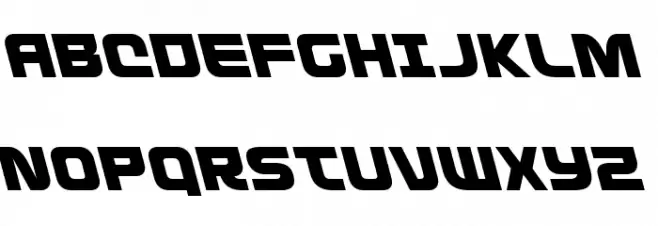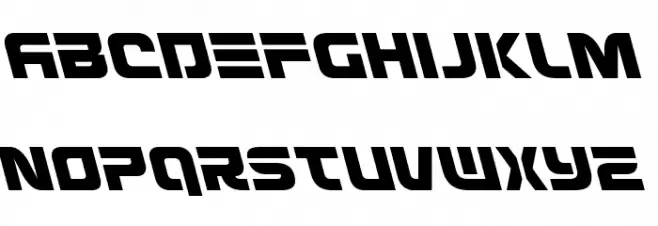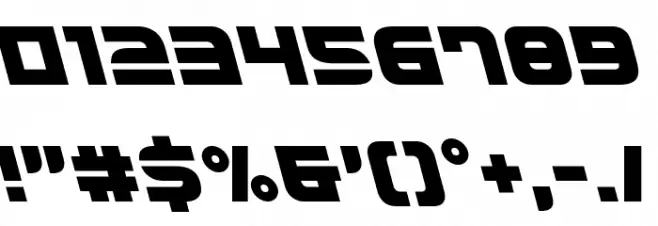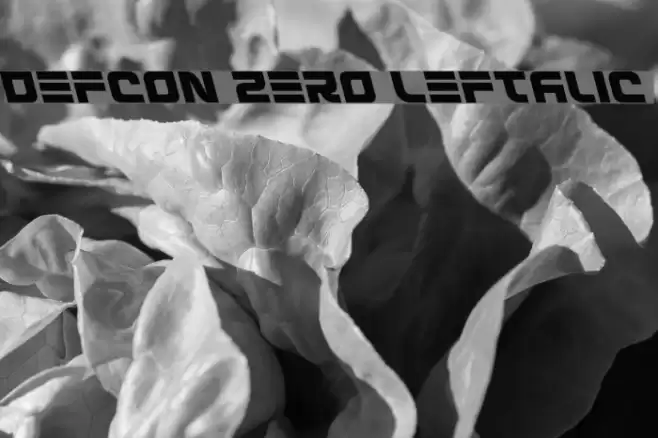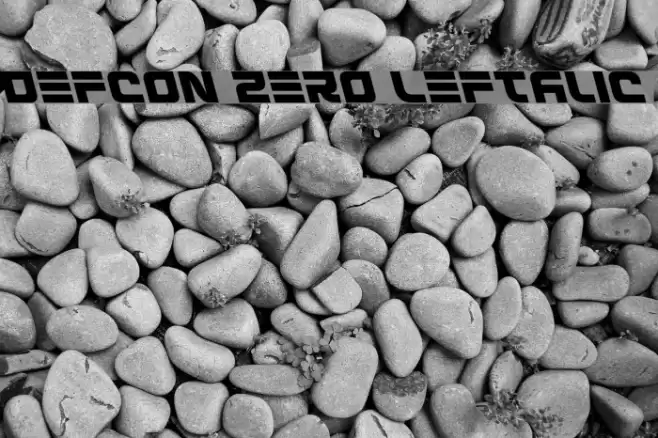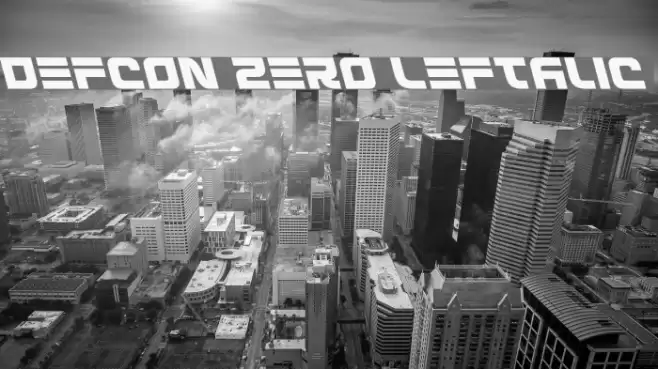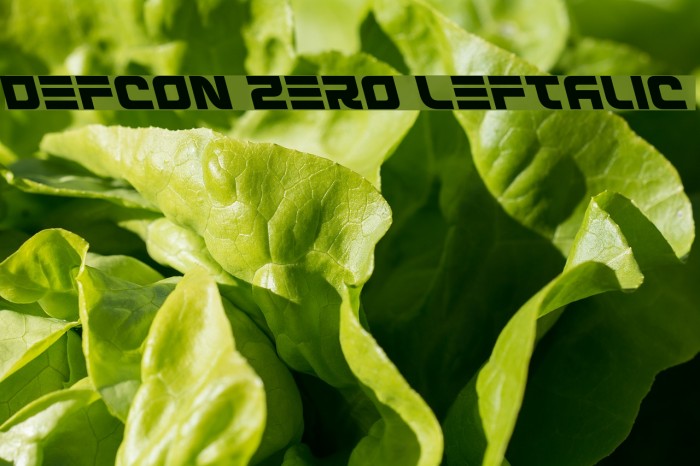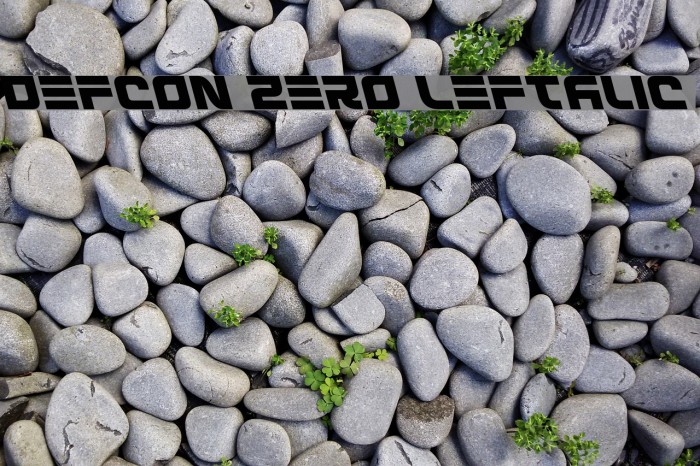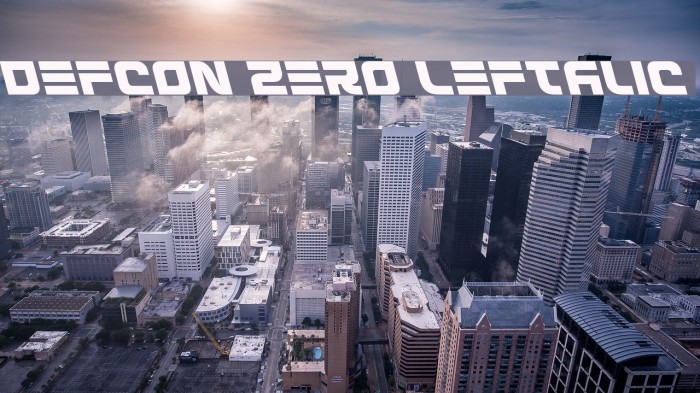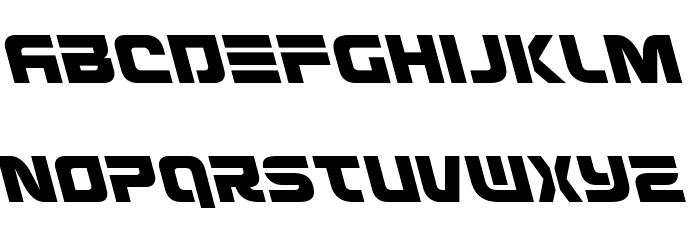
Defcon Zero Leftalic
This font features a bold and futuristic design with a distinct slant to the left, giving it a dynamic and forward-moving appearance. The characters are blocky and geometric, with sharp angles and a strong presence. The uppercase and lowercase letters maintain a consistent style, while the numbers and special characters integrate seamlessly into the overall design. The font's unique style makes it stand out, perfect for projects that require a modern and edgy look.
A bold, futuristic font with a leftward slant and geometric design.
- Proposed Projects: Ideal for sci-fi themed projects, video game titles, tech branding, and modern posters.